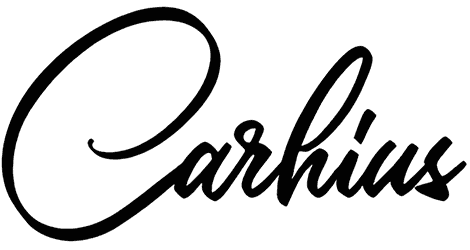
Carhius Font
Selecting a suitable font, such as Carhius is very crucial for the quality of your graphic content, including movie posters, book covers, magazines, billboards, or product packaging. So, take the lack of good readability for granted and pick up this lovely calligraphy font. Needless to say, due to its cursive style and rounded characters, it conveys a sense of vitality, momentum, and sincerity.